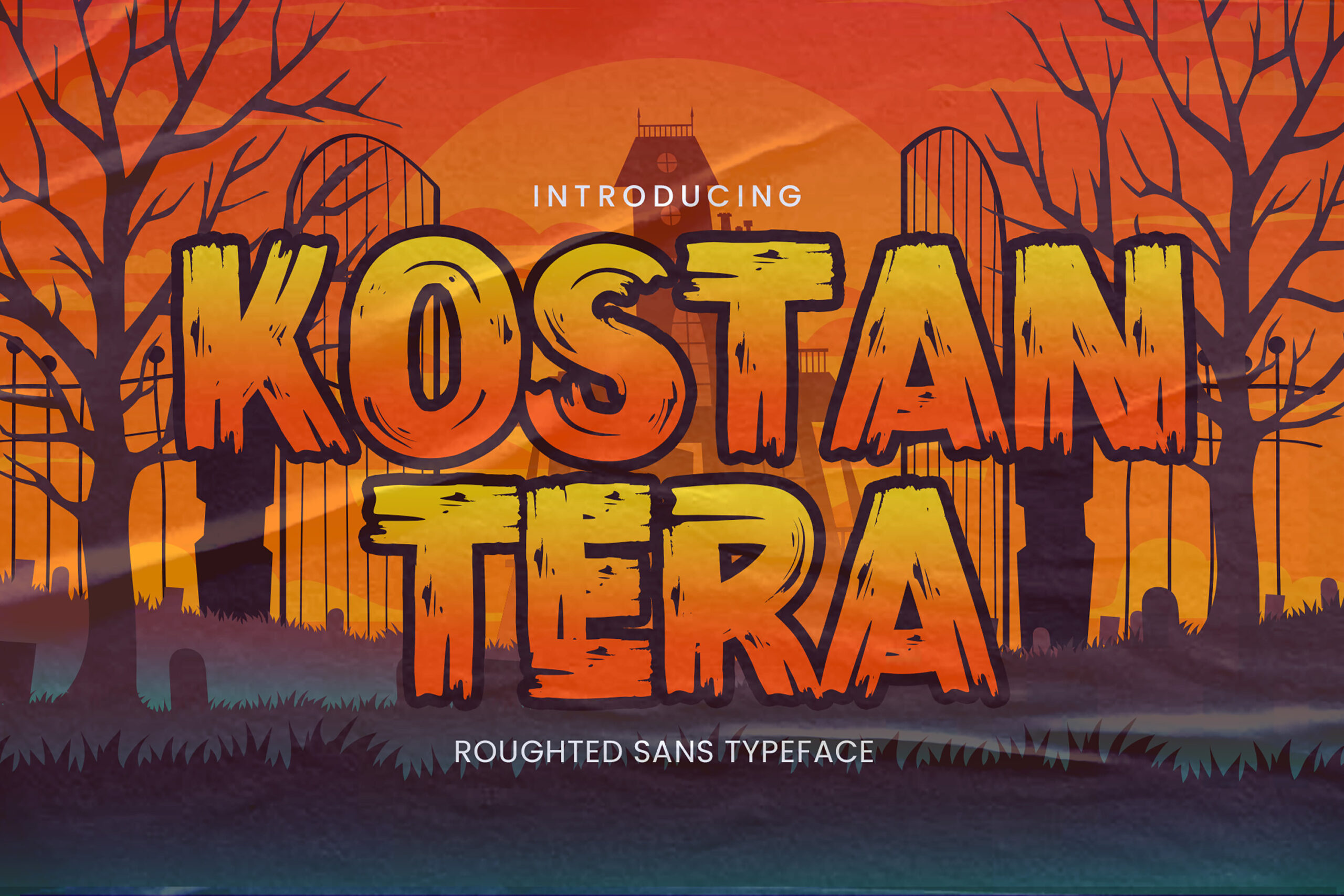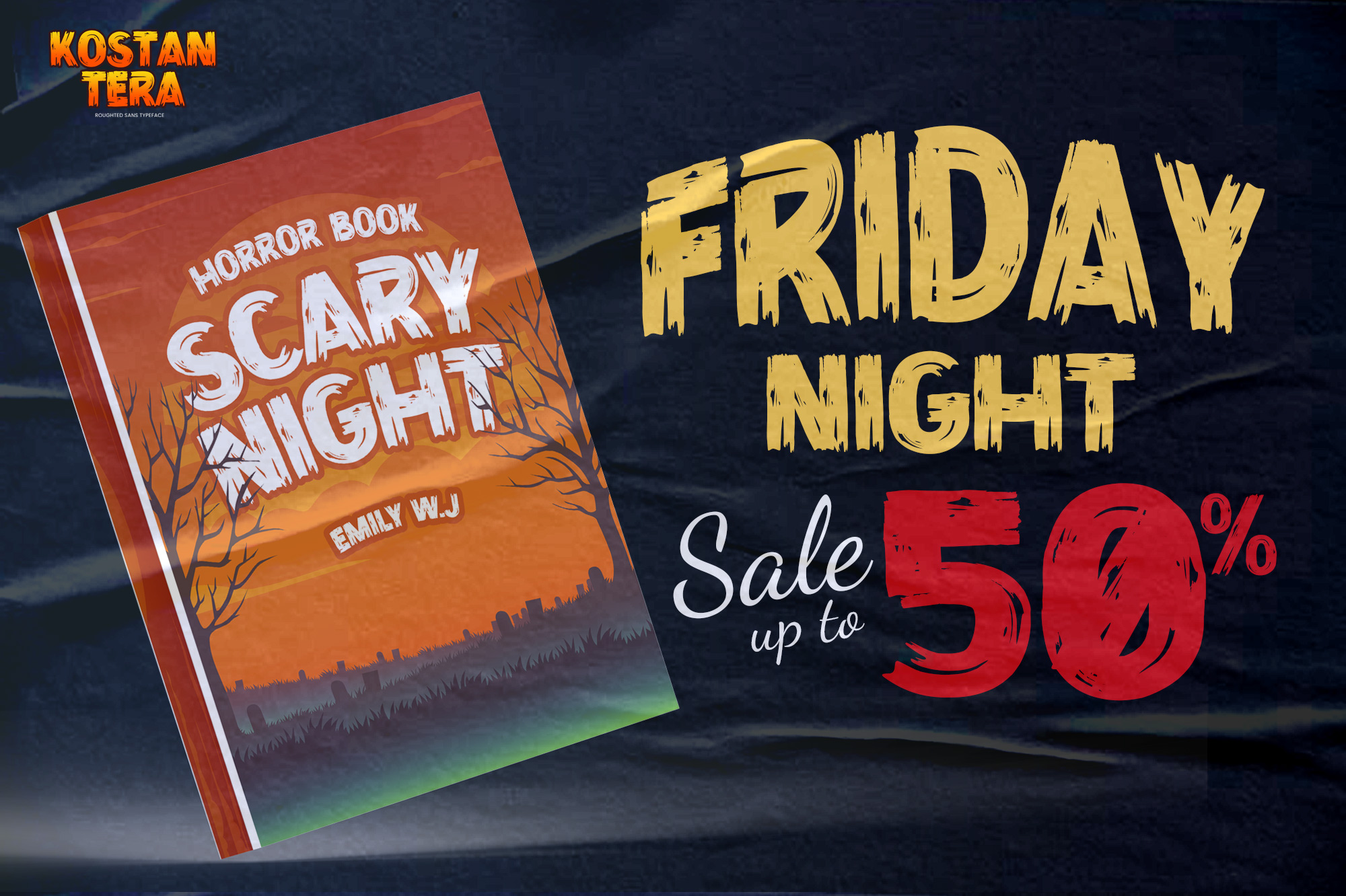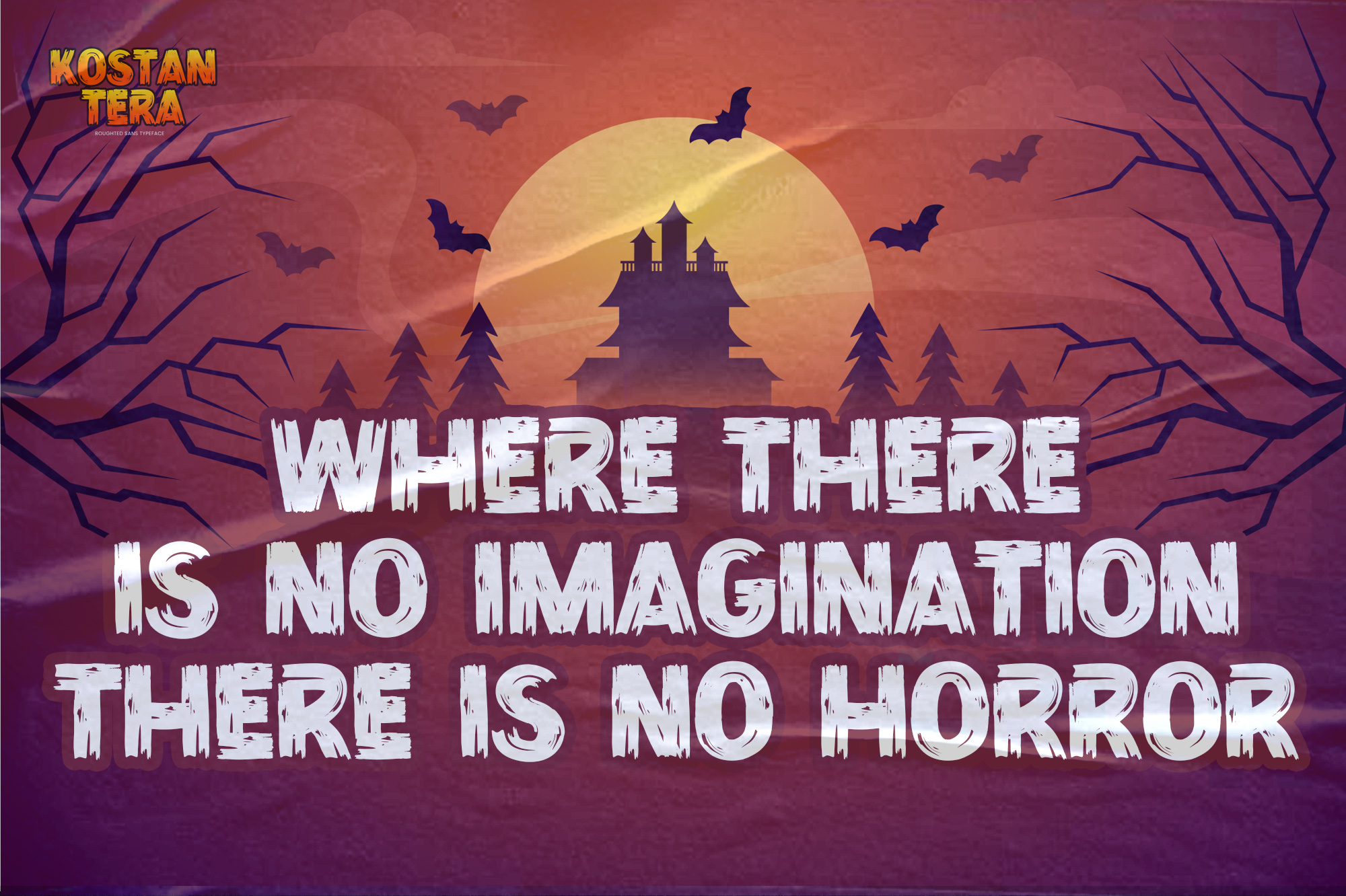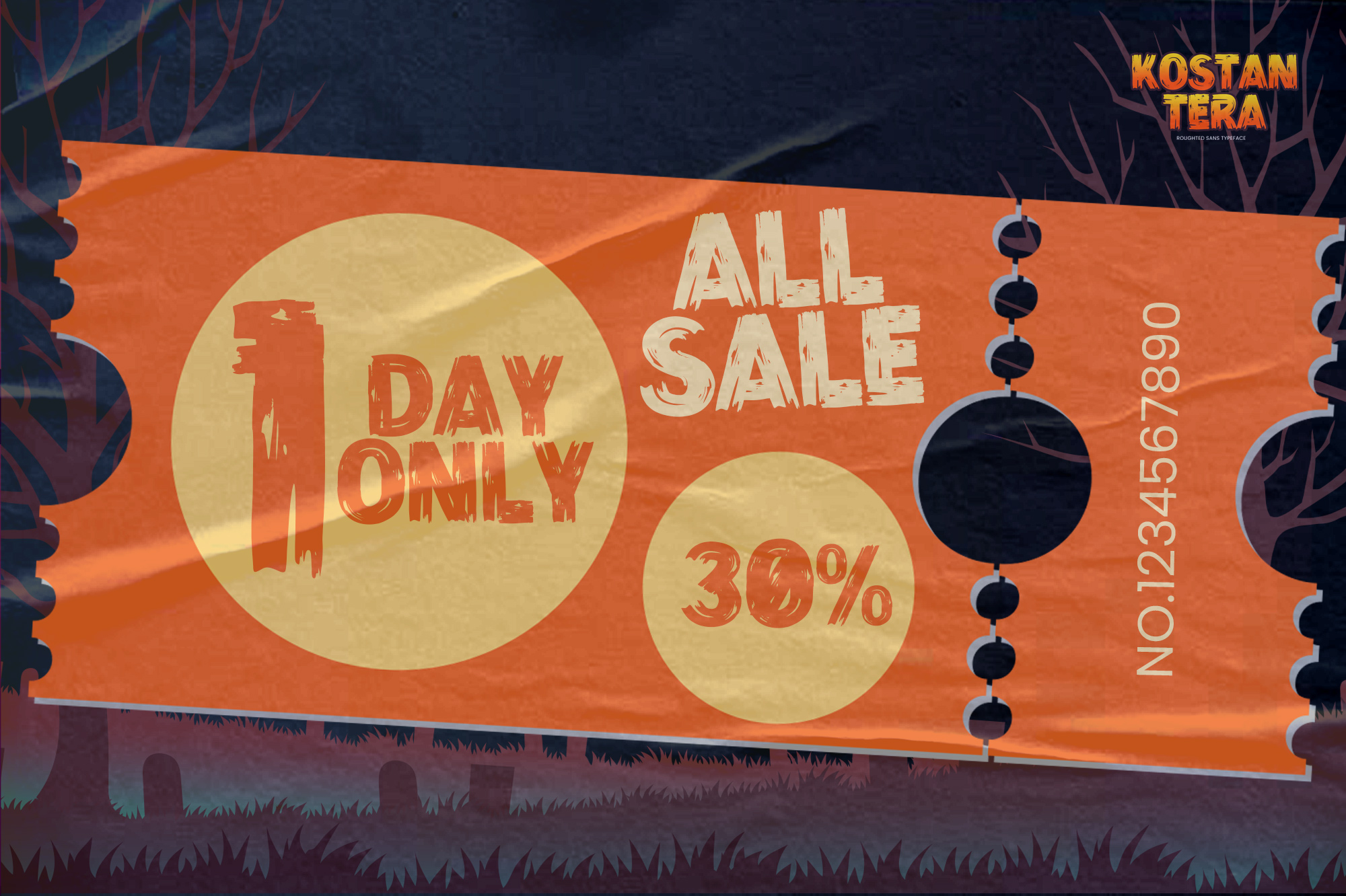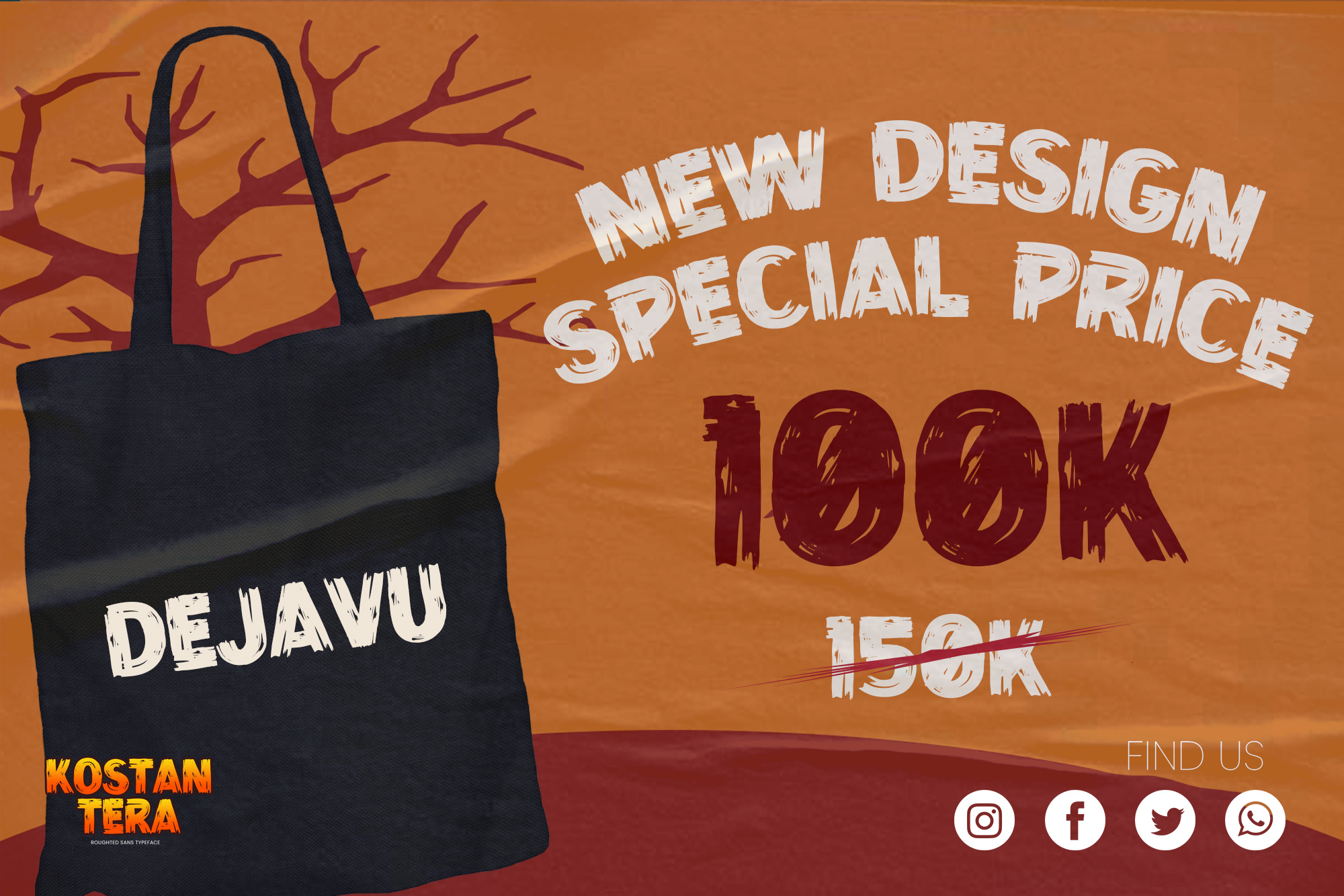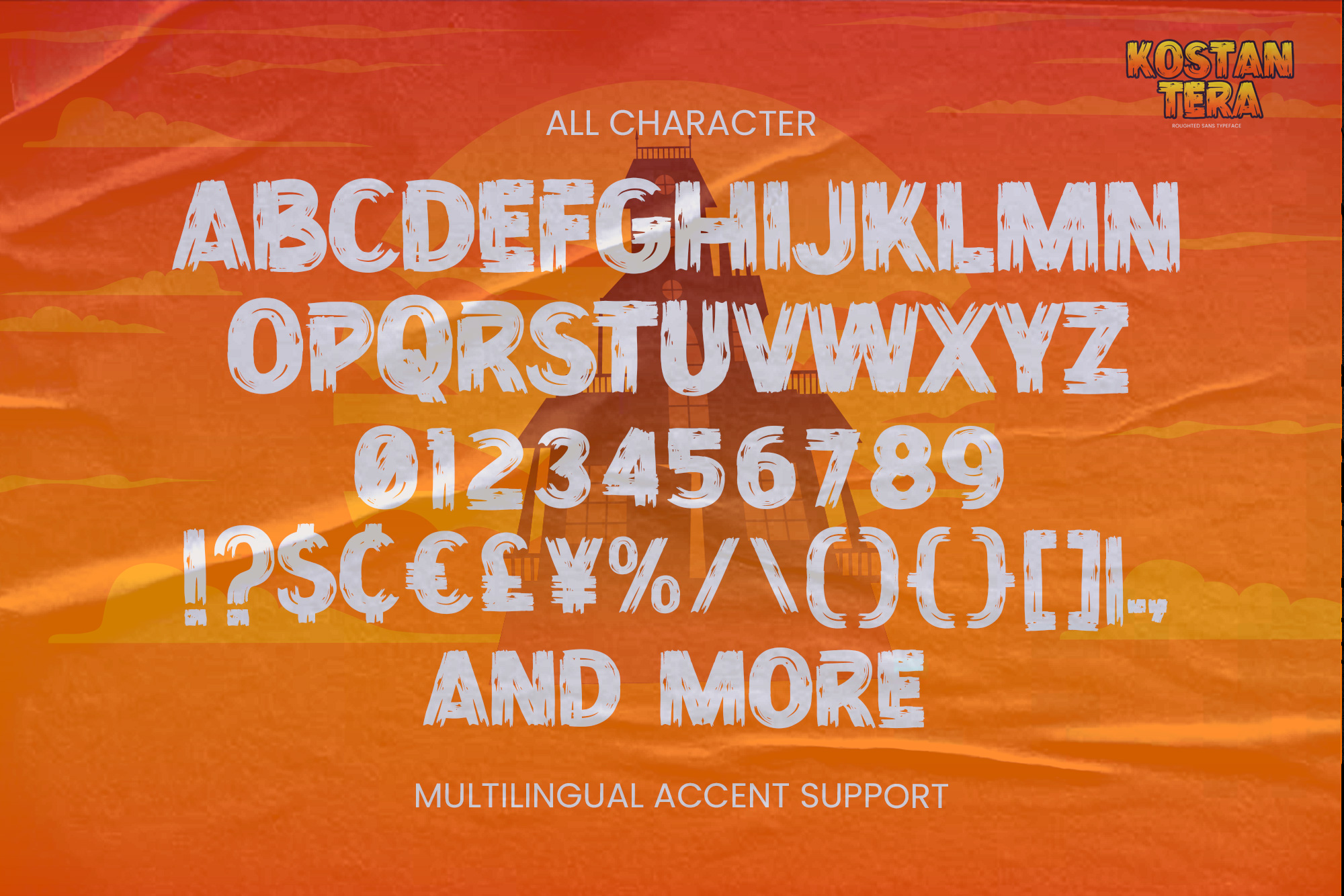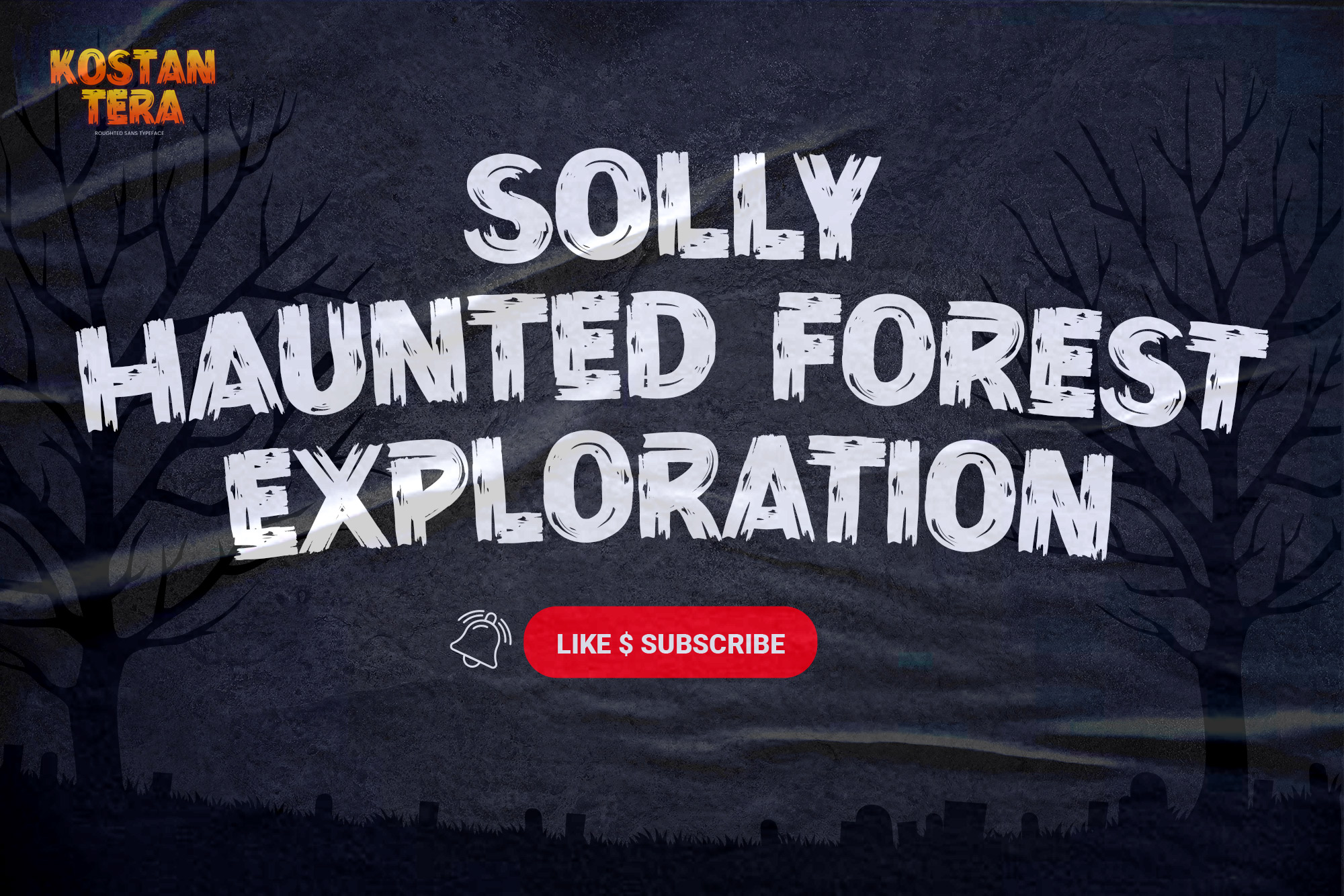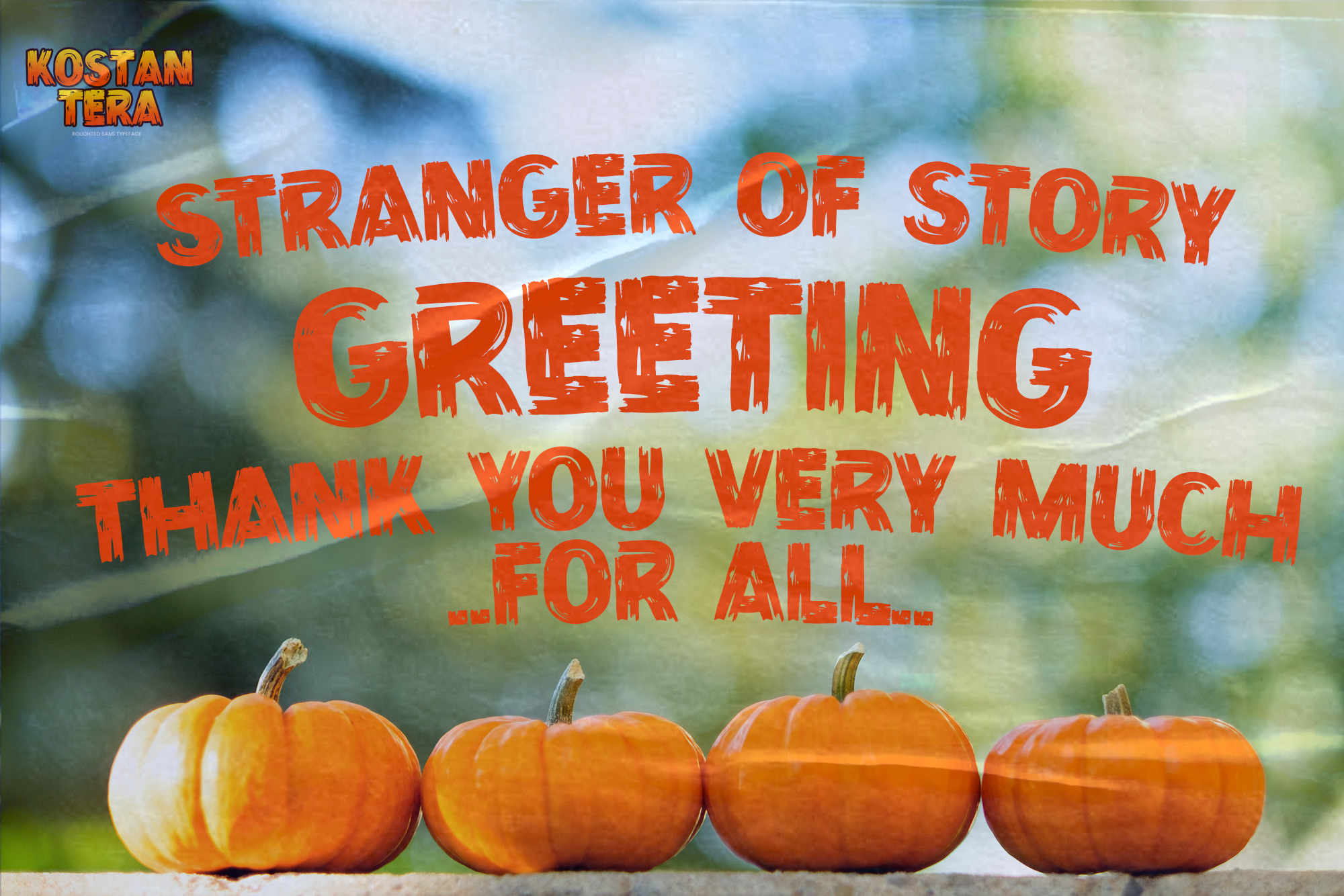
KOSTANTERA – Roughted Sans Typeface ,modern style and creative movement that is written casually and quickly.
The best for poster,project , designs look modern, unique and fun. It’s perfect for labels, quotes, posters, DIY projects, branding, packaging, greeting cards, websites, photography overlays, signs, scrapbooking, tags and so much more! That is why KOSTANTERA has a brush , and strong characteristic more natural look.